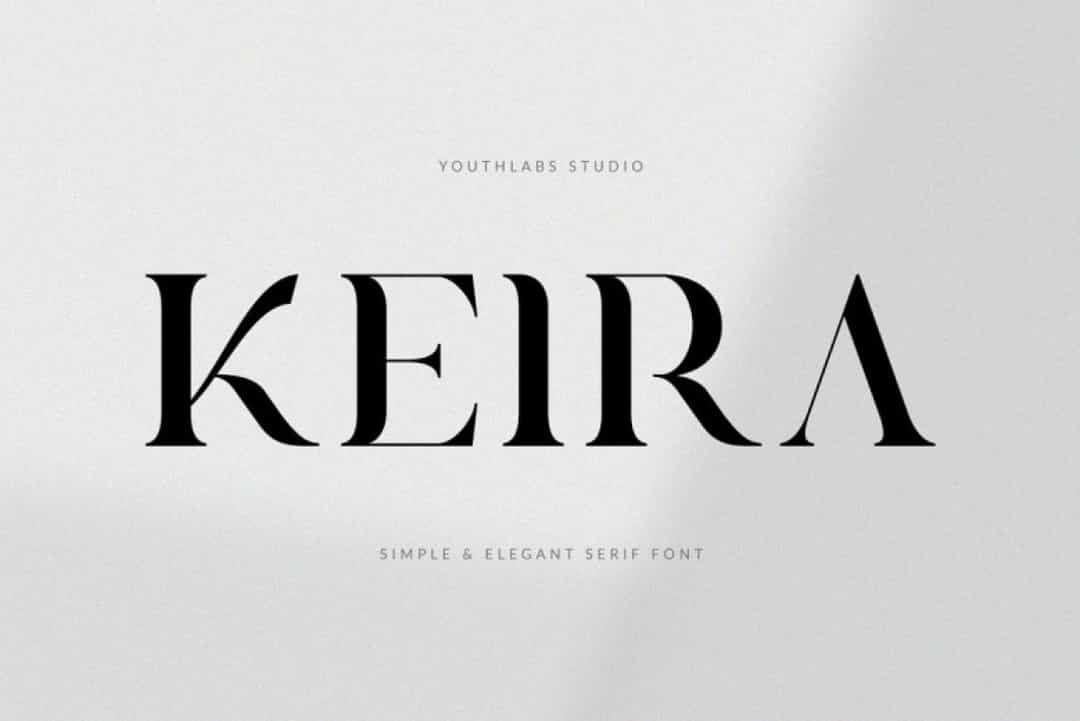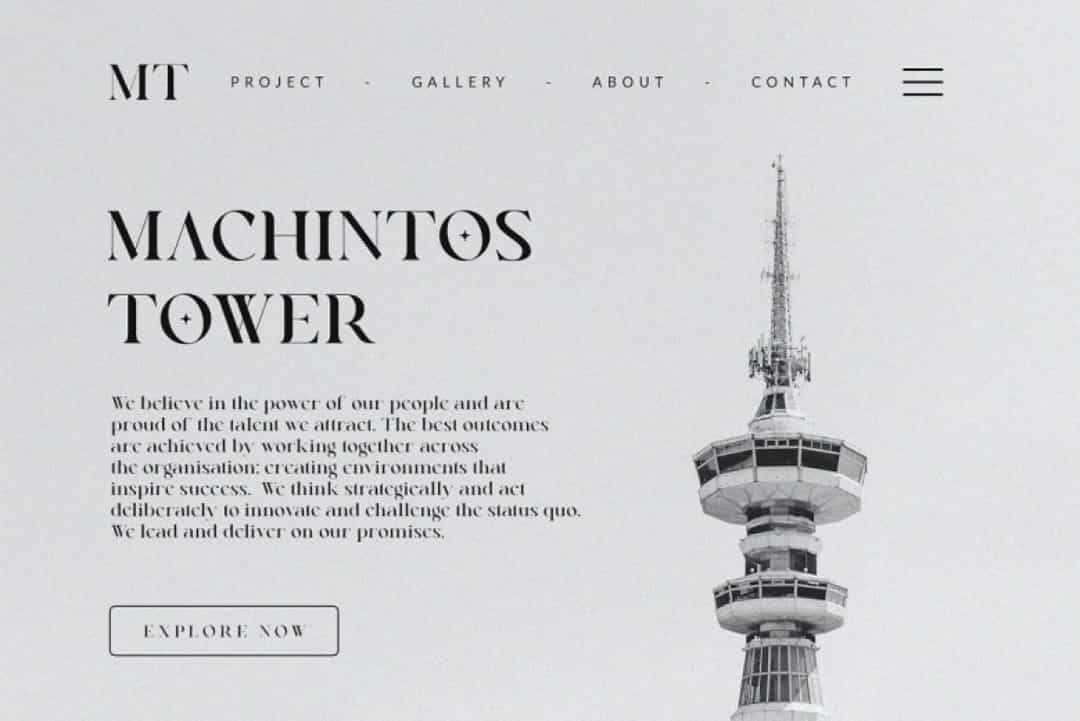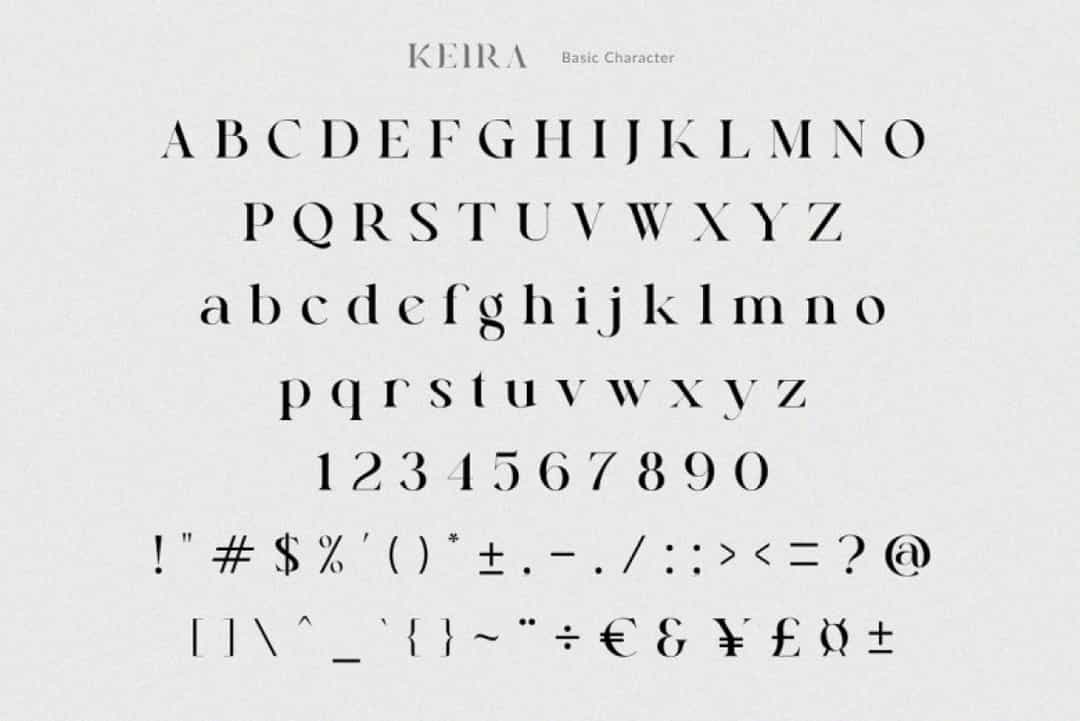
Keira Serif Font is here! This brand new serif font boasts a simple and elegant design with more Opentype features and beautiful curves reminiscent of minimalist typography. Keira Serif Font was inspired by simple yet beautiful Typography.